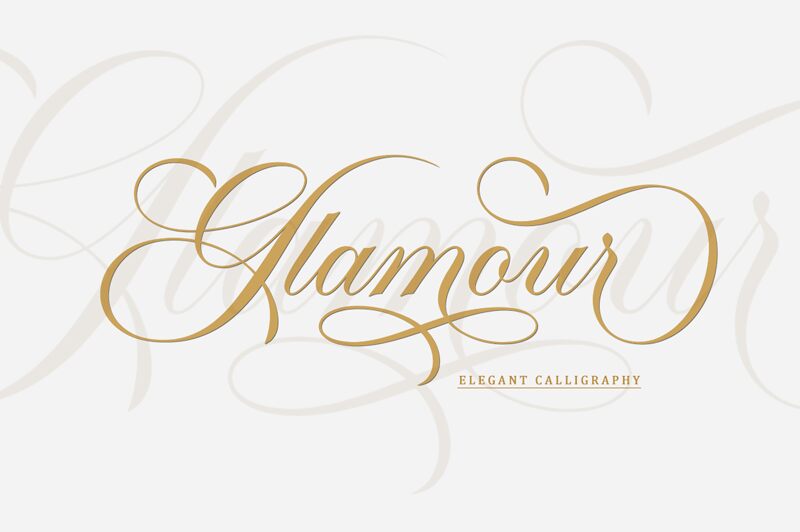
Glamour, a mesmerizing calligraphy font by Wahi Din, exudes elegance and sophistication. With its delicate strokes and graceful curves, this light-weight typeface adds a touch of glamour to any design project. Perfect for wedding invitations, luxurious branding materials, or fashion magazines seeking a refined aesthetic. Glamour's exquisite details make it ideal for creating eye-catching logos or headlines that demand attention. Its versatility extends to editorial layouts, where it can beautifully complement articles on beauty, lifestyle, or high-end products. Let Glamour elevate your designs with its timeless allure and artistic flair.
Features : Beginning, Middle, Up, Down & End Swash, & Ligatures.